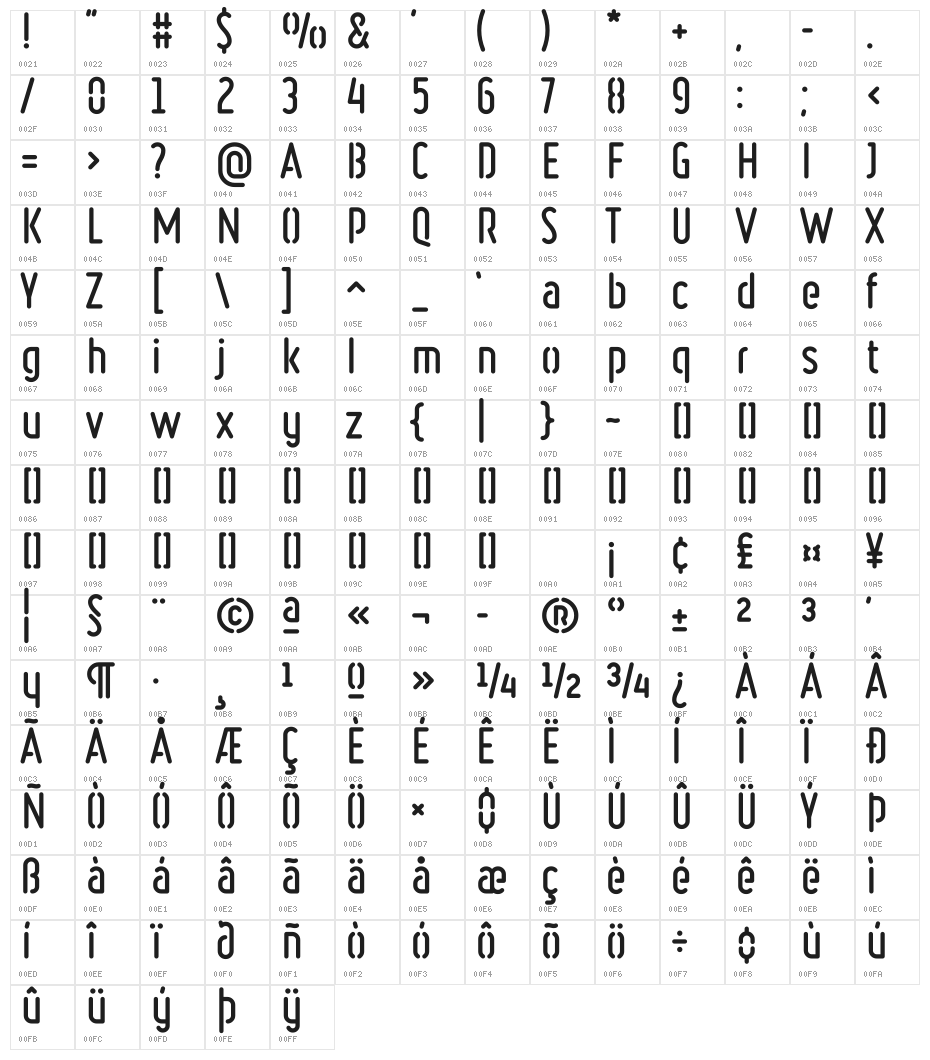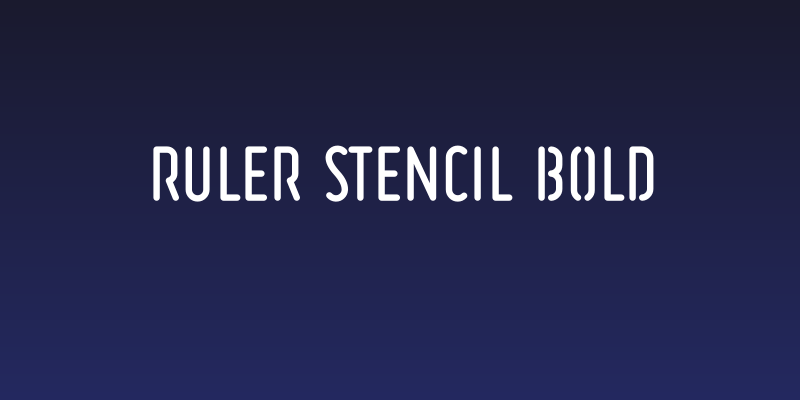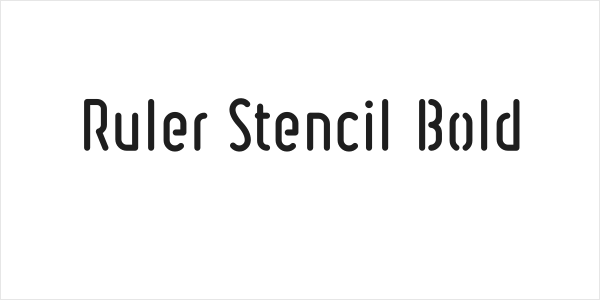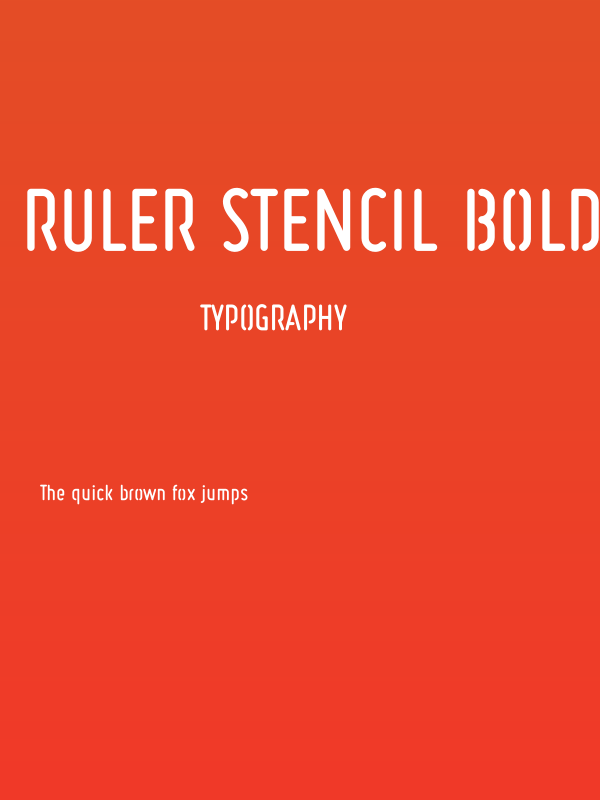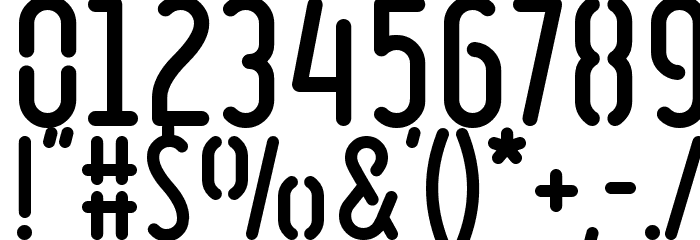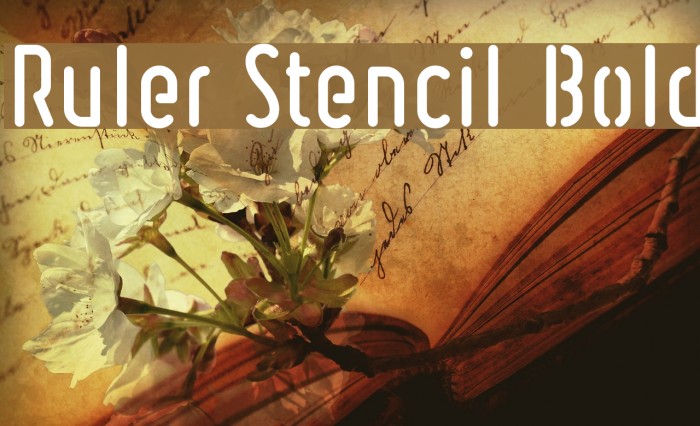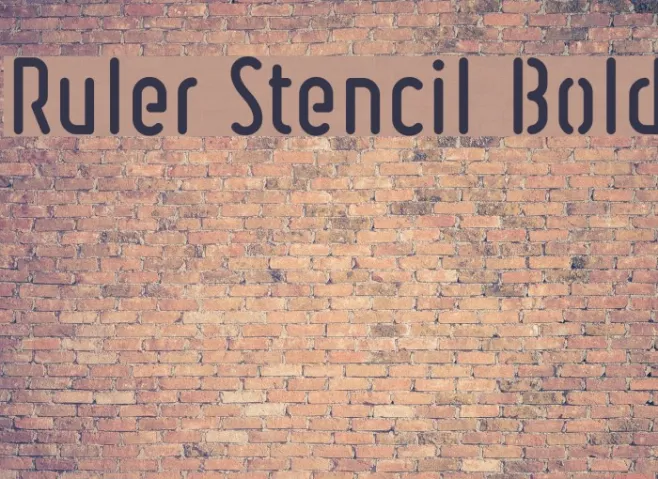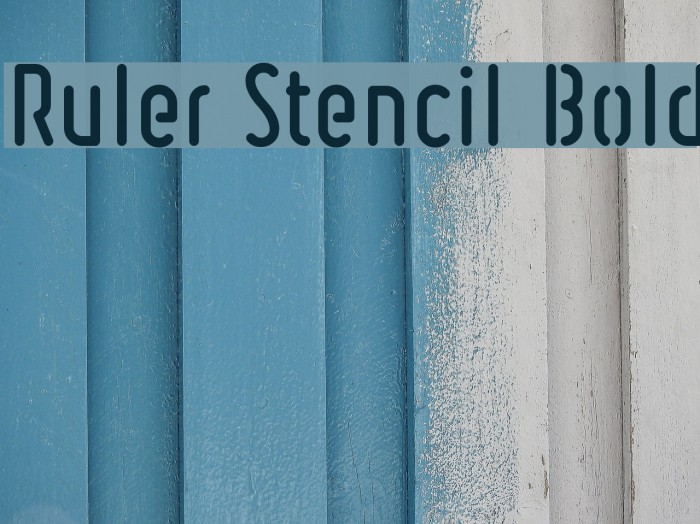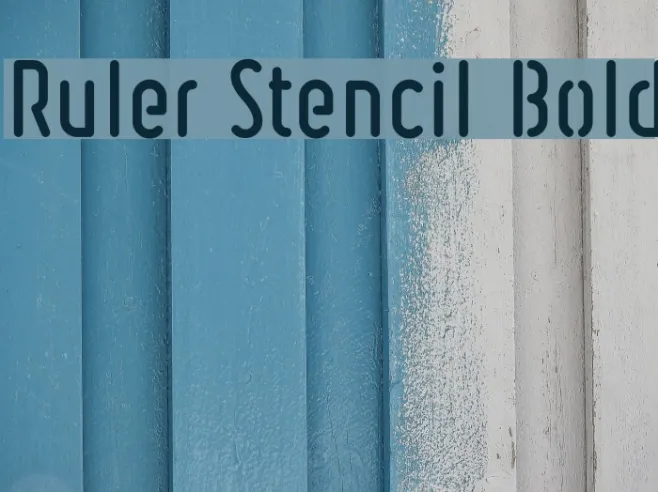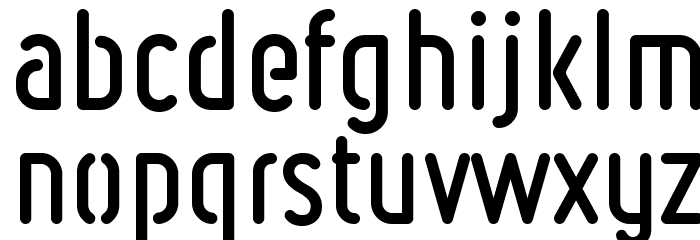
Ruler Stencil Bold Font
Ruler Stencil Bold Description
This font features a bold, stencil-like design with clean, rounded edges and distinct breaks in the strokes, giving it a modern and industrial feel. The uppercase and lowercase letters maintain a consistent height and width, creating a uniform appearance. The numerals and special characters are designed with the same stencil effect, ensuring cohesion across all glyphs. The font's boldness and clarity make it highly legible, even at smaller sizes, while the stencil style adds a unique, eye-catching element suitable for various design applications.
| Use Case | Headlines, Logos, Signage |
| Proposed Projects | Ideal for branding, signage, posters, and packaging design where a modern industrial look is desired. |